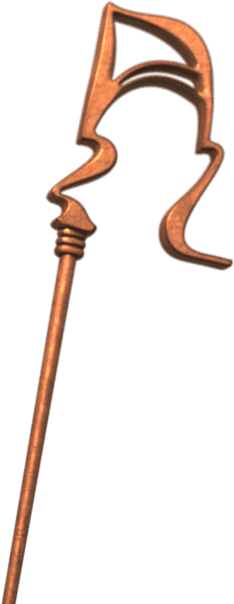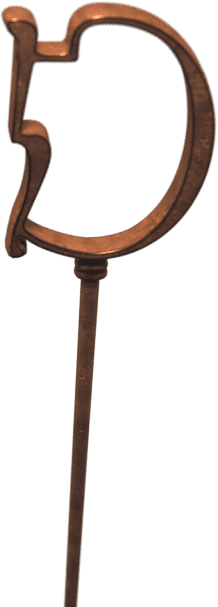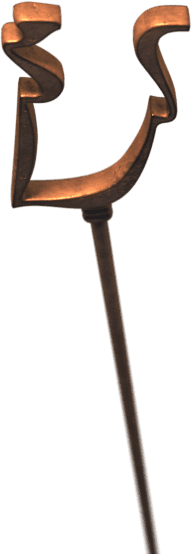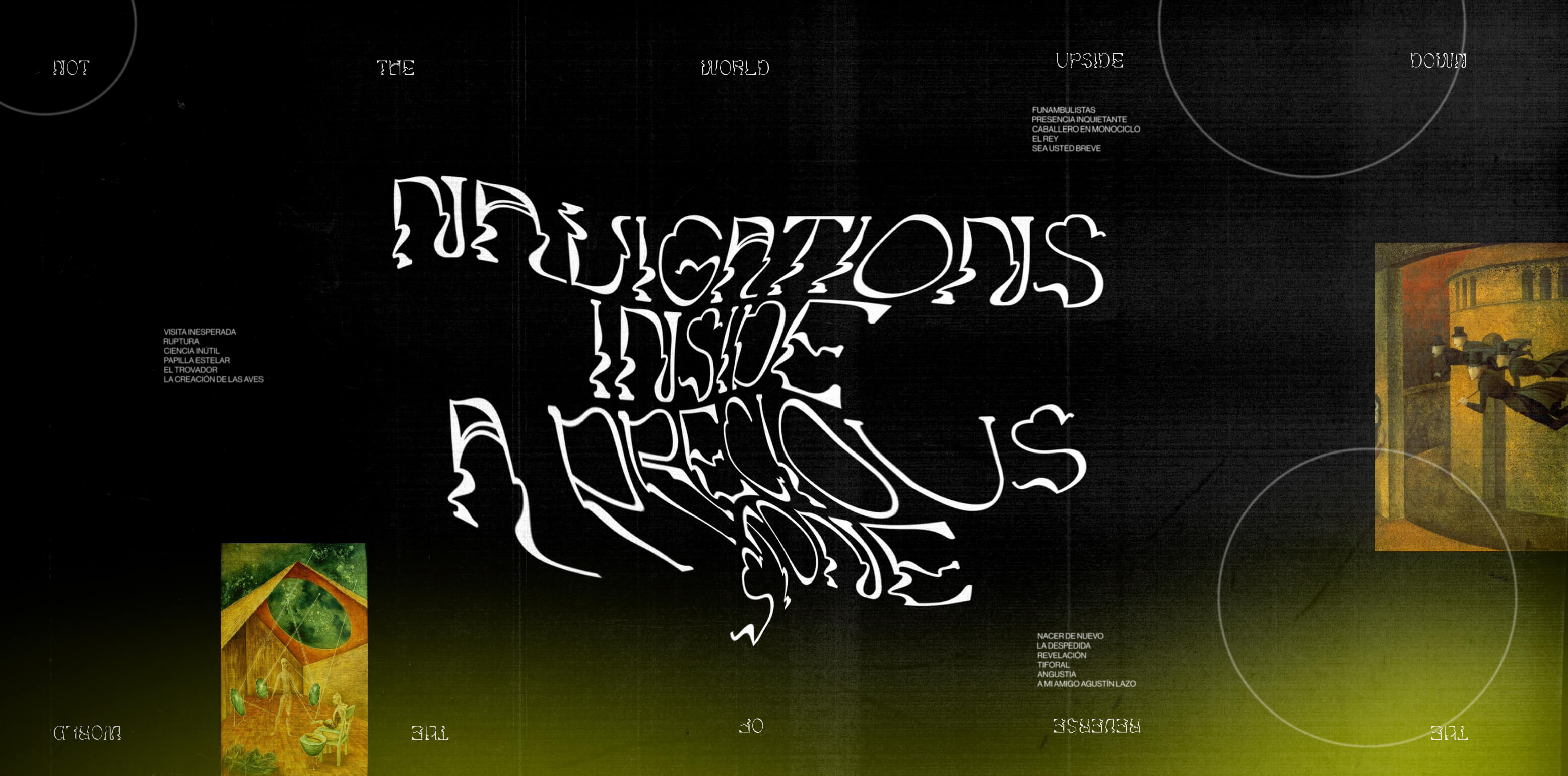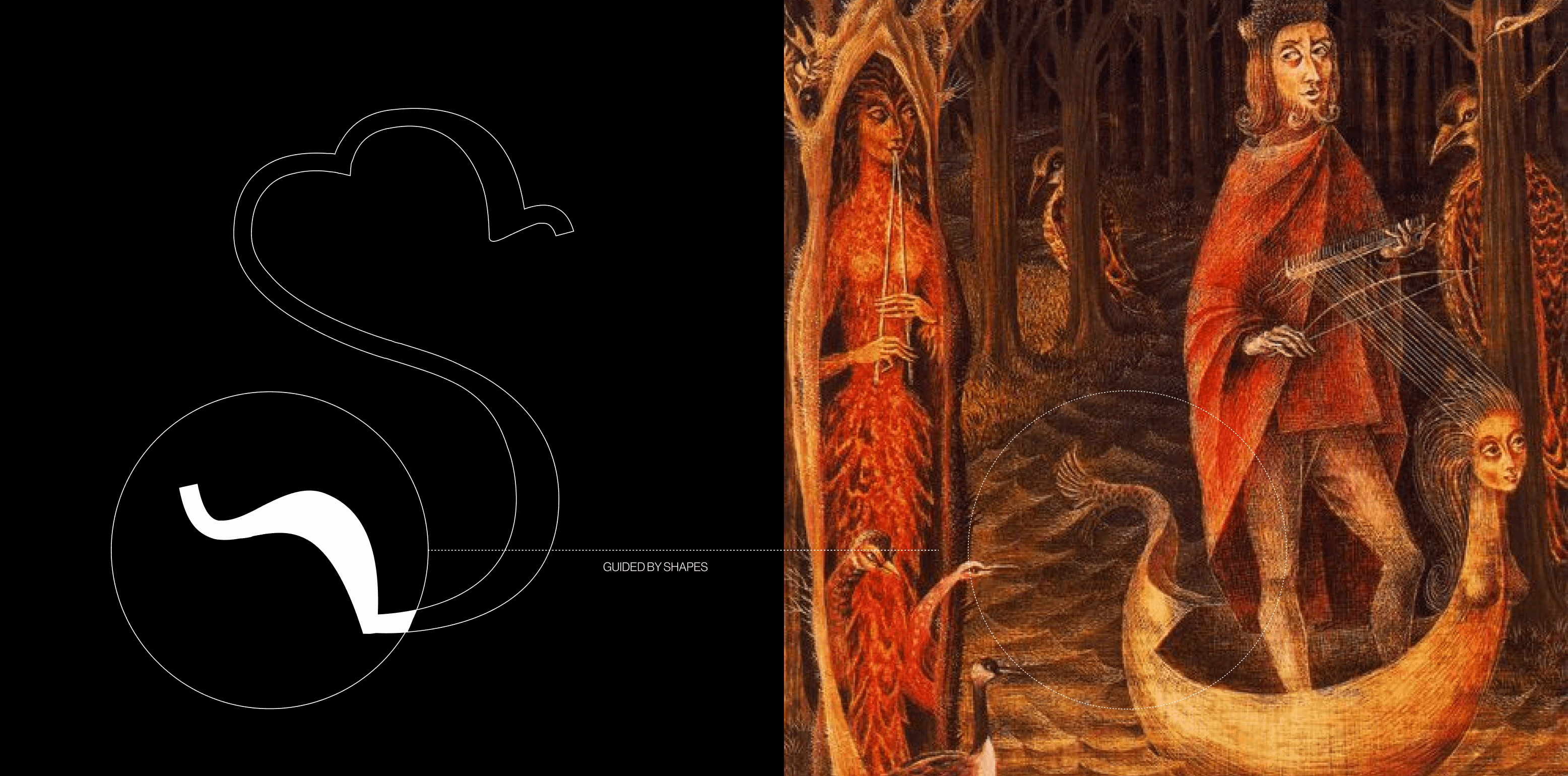
A magical & experimental display font inspired by the visionary lone painter, Remedios Varo, who typically portrays herself sitting at a desk engaged in magical work, embarking on a journey to unlock true meaning.
Trovador
DescriptionA magical & experimental display font inspired by the visionary lone painter, Remedios Varo, who typically portrays herself sitting at a desk engaged in magical work, embarking on a journey to unlock true meaning. Highly experimental, the letterforms evoke a landscape of melting stems, collapsing arches, and shivering shapes as if seen through water.